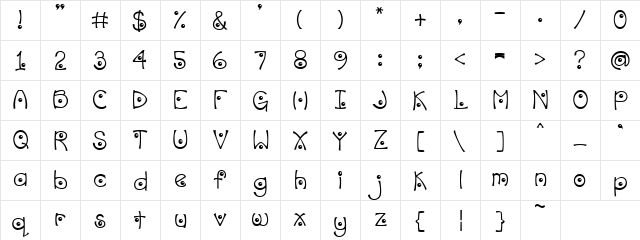
PC EightBall Regular
Design Context for PC EightBall Typeface
PC EightBall is a composed and adaptable typeface that performs quietly and consistently across a wide range of design contexts.